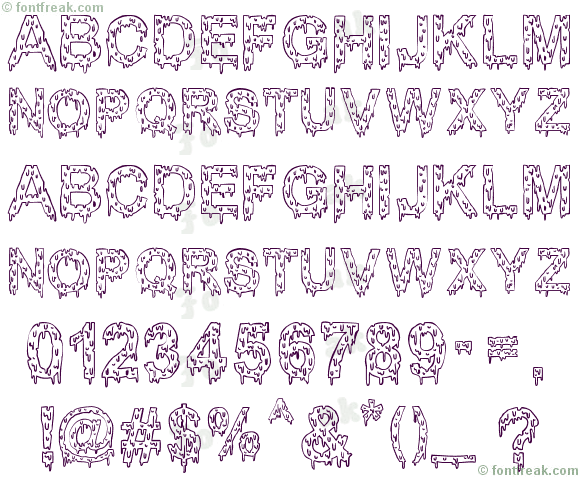
Mister Muerte
About Mister Muerte
Mister Muerte, crafted by woodcutter Manero, is a striking display typeface that captures attention with its unique and bold aesthetic. This font features a decorative style characterized by irregular, jagged edges that evoke a sense of ruggedness and authenticity. The stroke weight is consistent yet varied, adding depth and texture to each letter, while the spacing offers a spacious feel, allowing the design to breathe. The intricate details and decorative elements give it a hand-carved appearance, making it ideal for creative projects that require a strong visual impact.
Mister Muerte is versatile enough for various applications. Its bold presence makes it perfect for movie posters, where it can effectively convey excitement and intrigue. Similarly, this font is an excellent choice for restaurant menus, particularly those with a rustic or themed ambiance, as it lends a unique character to the overall design. Wedding invitations can also benefit from its distinctive style, providing a memorable touch for couples looking to express their individuality. Additionally, graphic designers will find it suitable for branding projects, where a standout font can make a lasting impression.
The target audience for Mister Muerte includes graphic designers, small business owners, and content creators who are in search of a font that can enhance their visual storytelling. This typeface stands out not only because of its eye-catching design but also due to its ability to convey personality and emotion through typography. For those interested in elevating their projects, the Mister Muerte font free download offers an exciting opportunity to incorporate this distinctive typeface into their work, setting them apart in a crowded visual landscape.